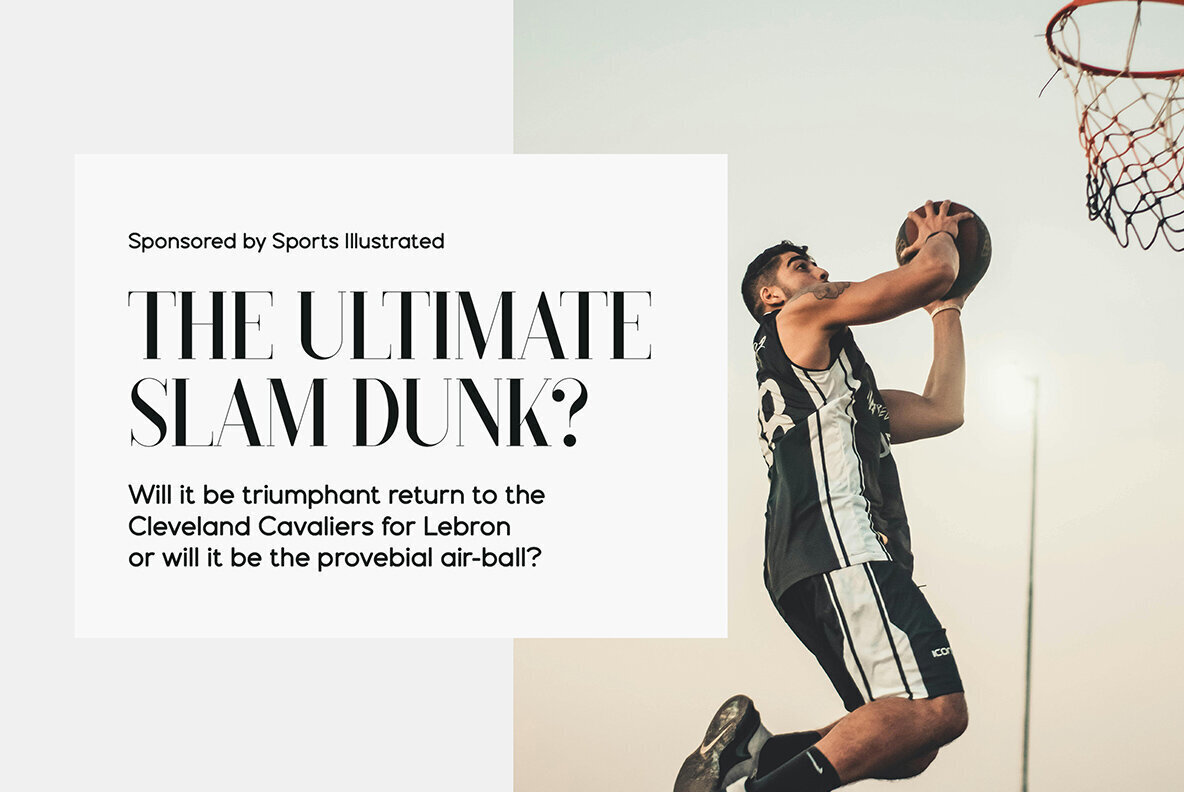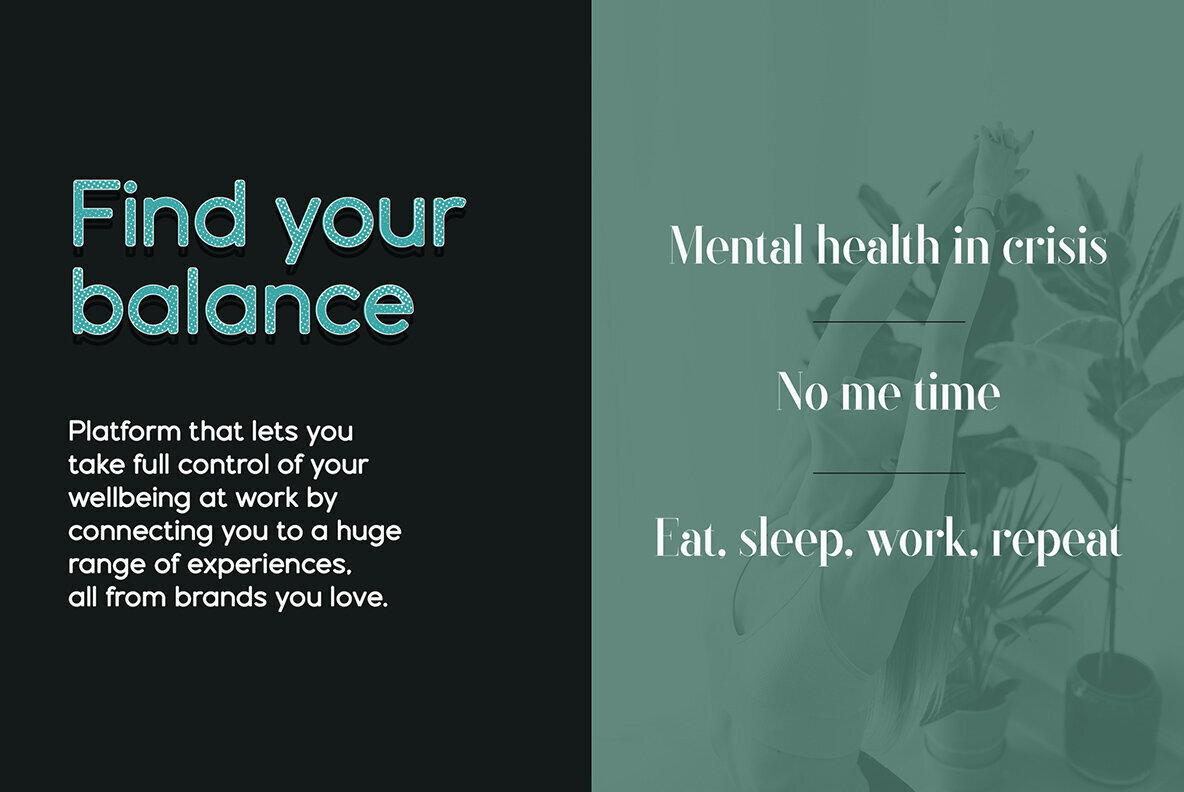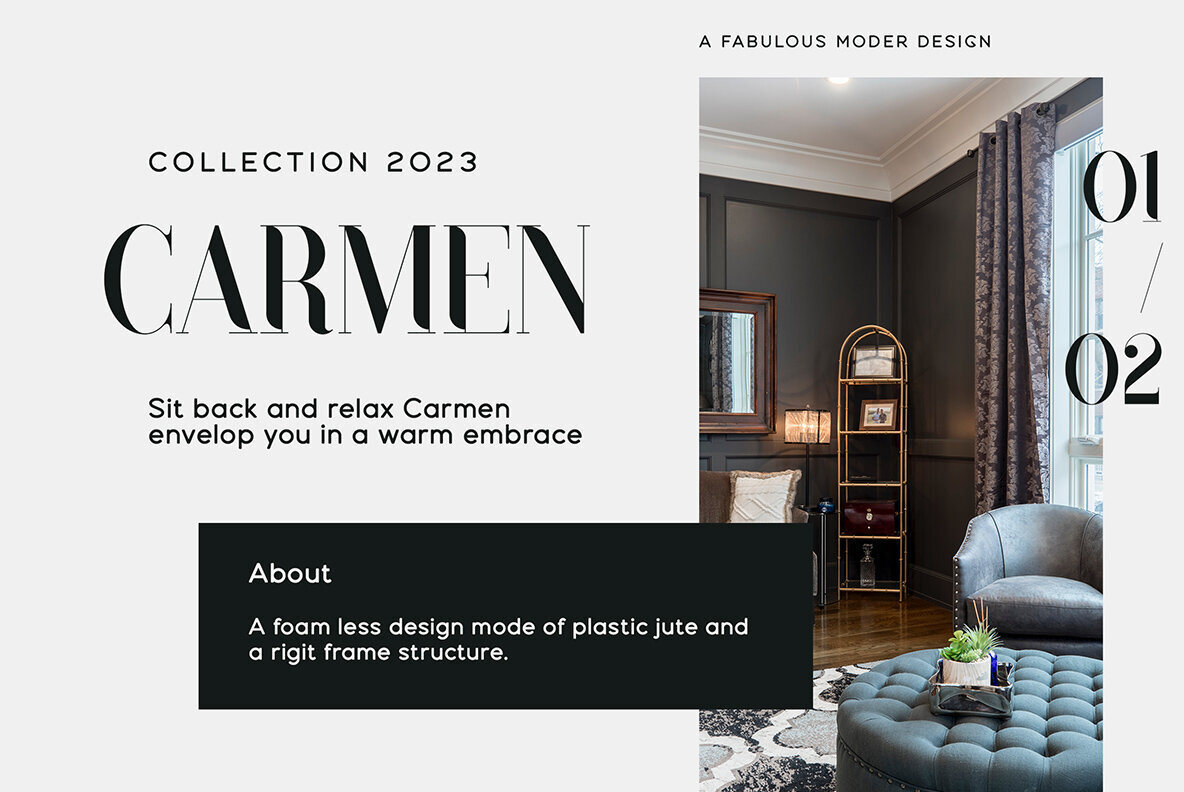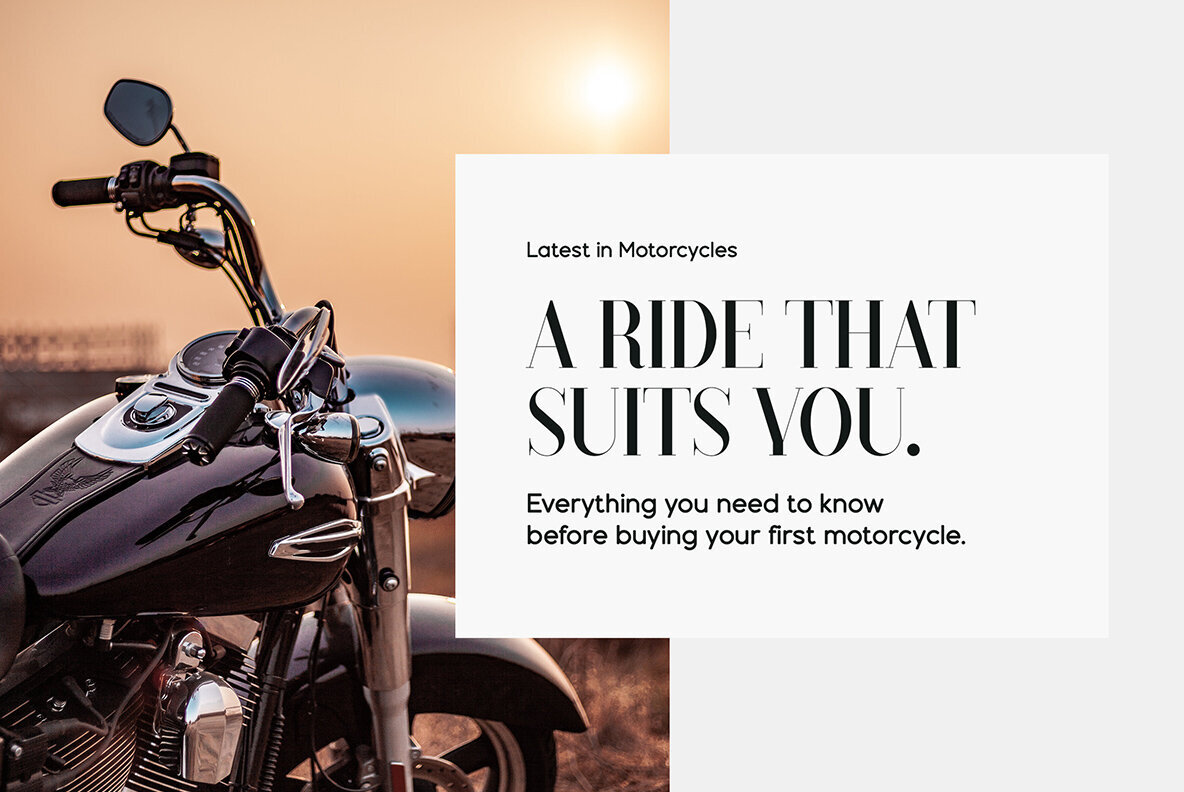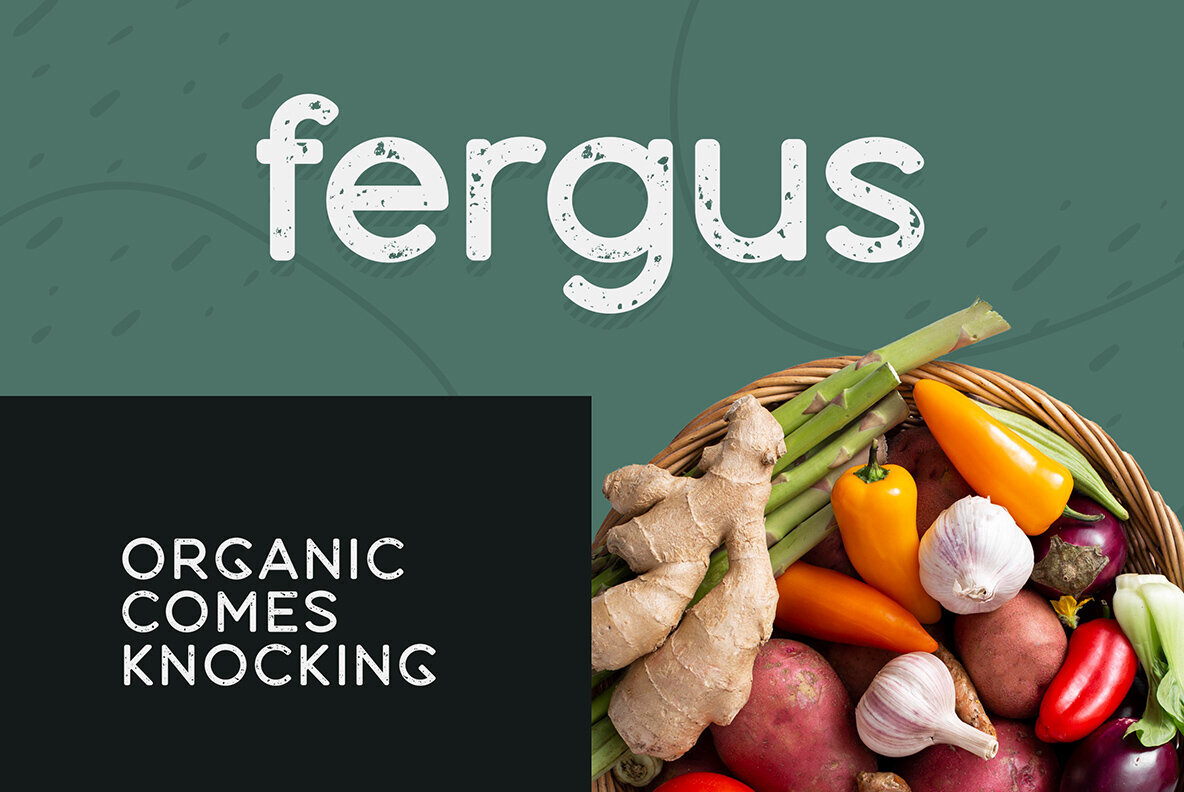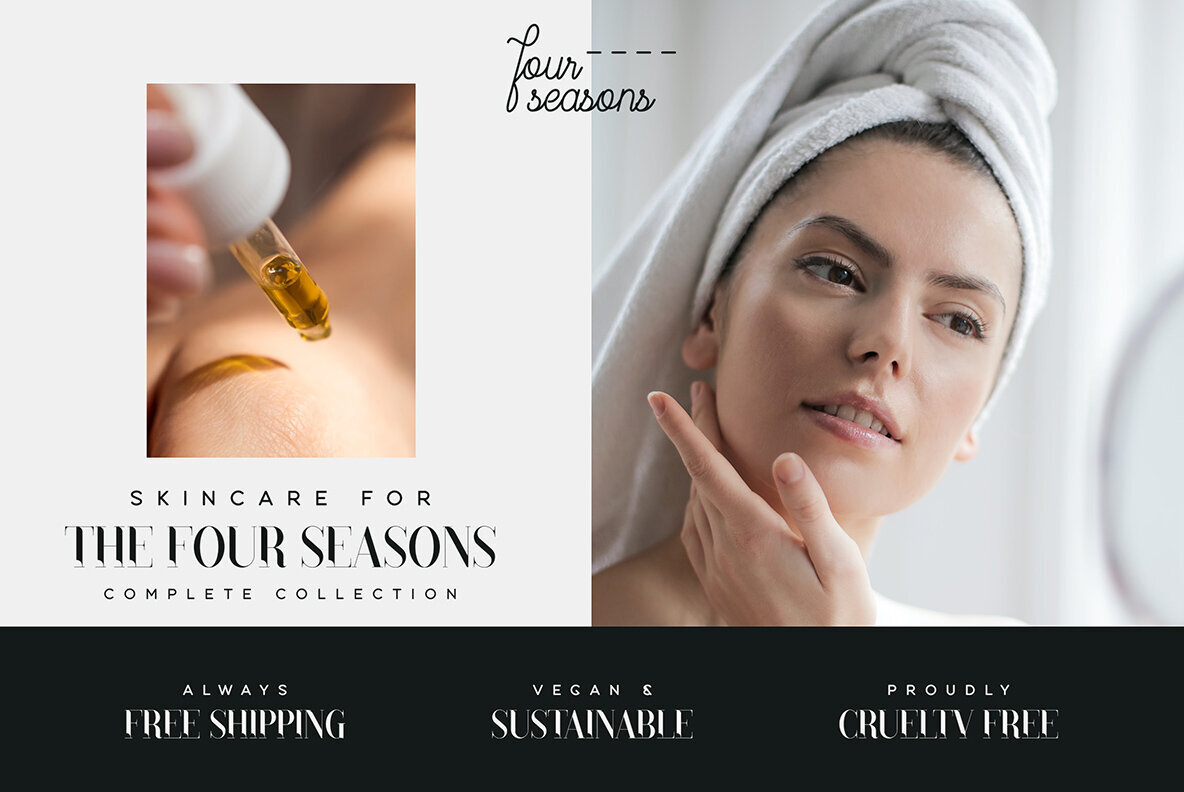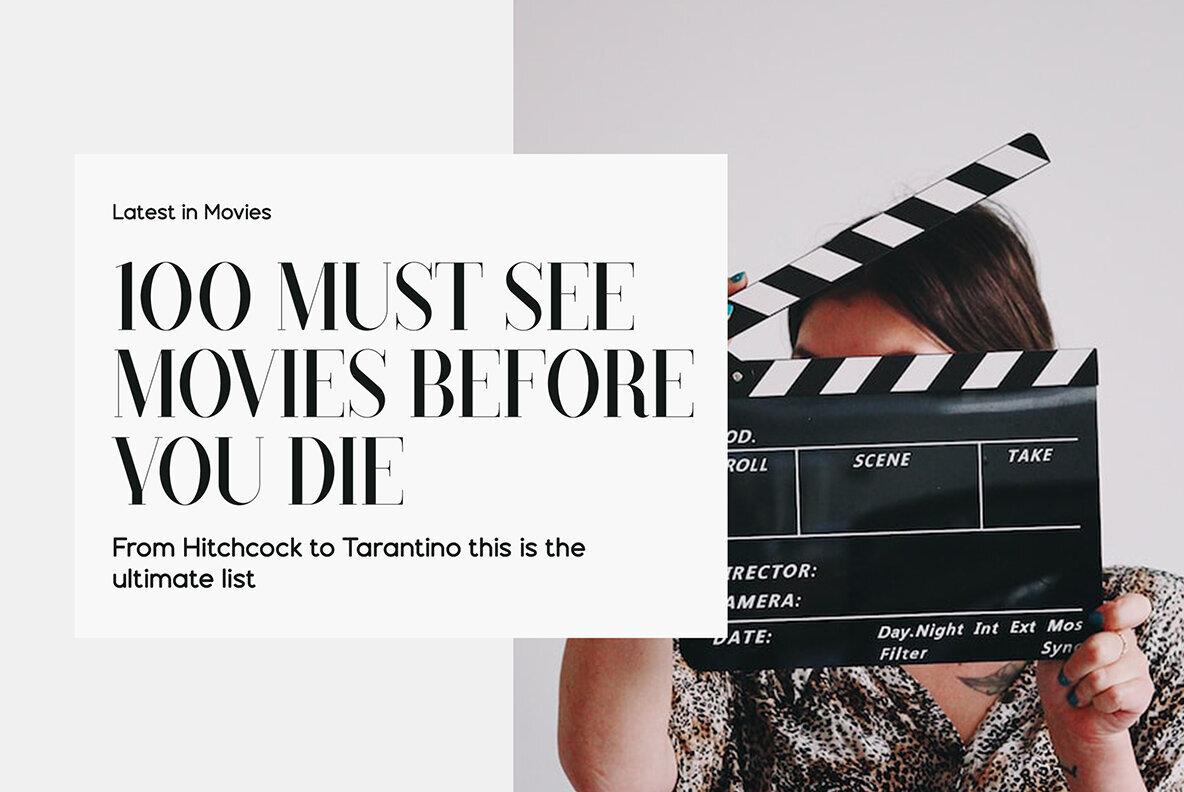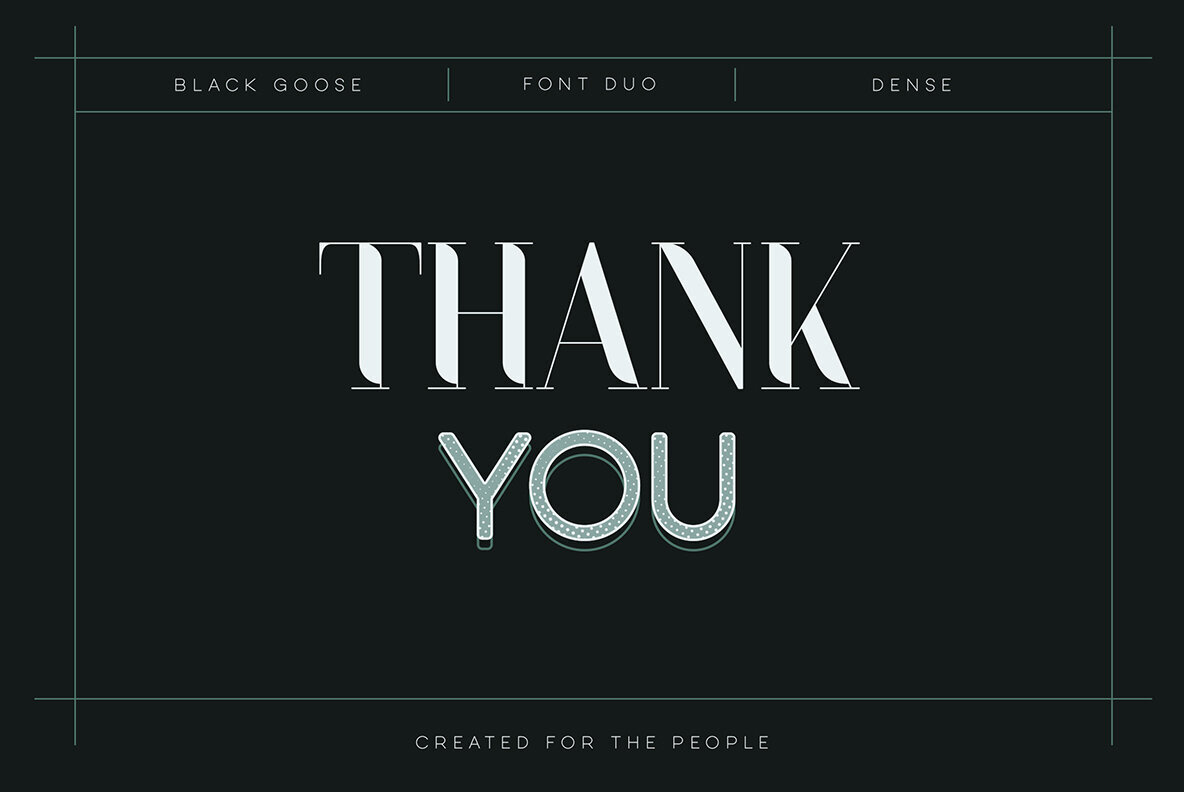
When Black Goose meets Dense Font
Introducing the 'When Black Goose meets Dense' font duo—a powerhouse combination of elegance, modernity, and versatility. Black Goose, a display typeface featuring regular, cut, styled, rounded, and reversed font styles, infuses designs with an aura of sophistication, approachability, and intrigue. Whether you crave a contemporary edge or a touch of whimsy, Black Goose's cut style offers boldness with sharp angles, while the styled variant brings playful decorative elements, ensuring your projects captivate and leave a lasting impression. Pairing seamlessly with Black Goose, Dense steps in with its impressive collection of 59 fonts, including regular, italic, rough, lines, dots, outline styles, and a script font with 4 weights. This versatile typeface complements Black Goose, adding creativity and impact to any project. Supporting 87 languages, the duo ensures effective communication across diverse audiences, making 'When Black Goose meets Dense' the ultimate choice for designers seeking to elevate their work with style, variety, and global appeal.